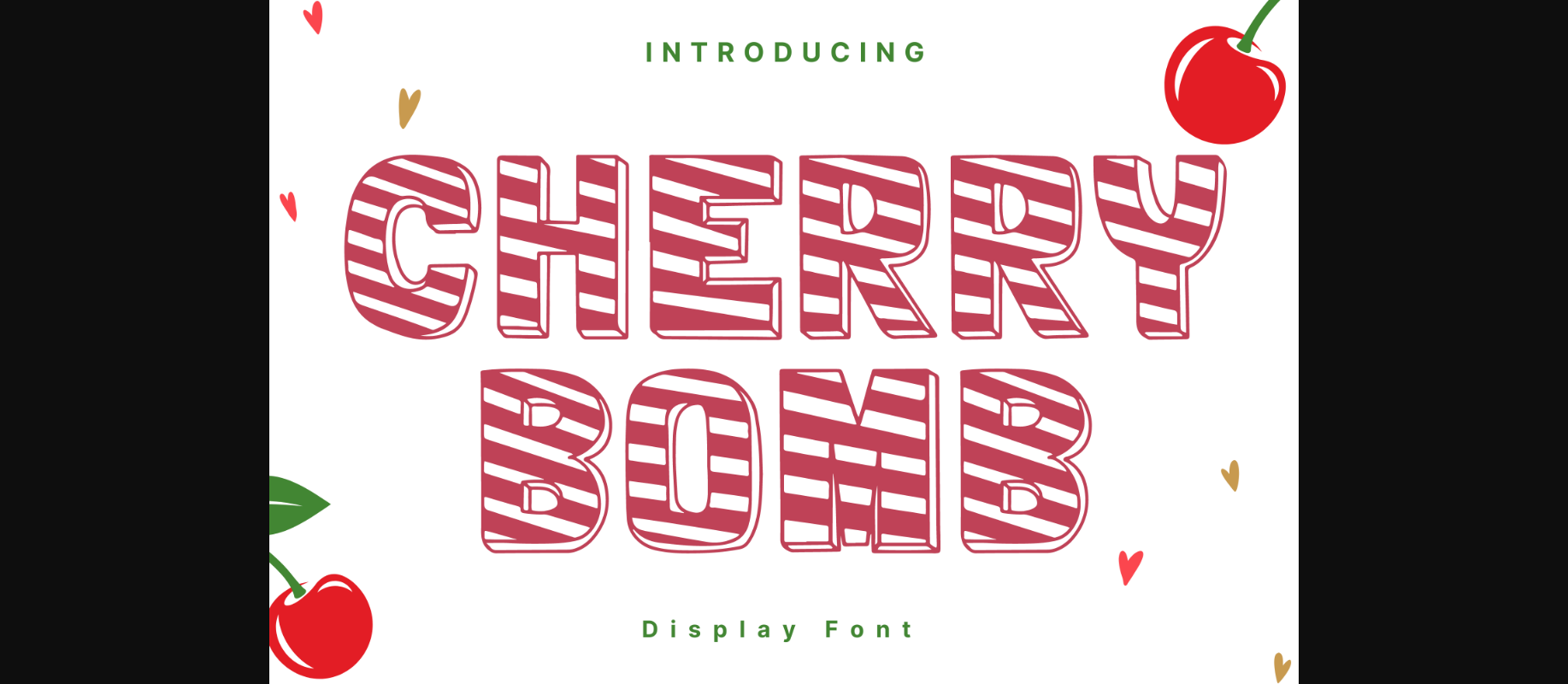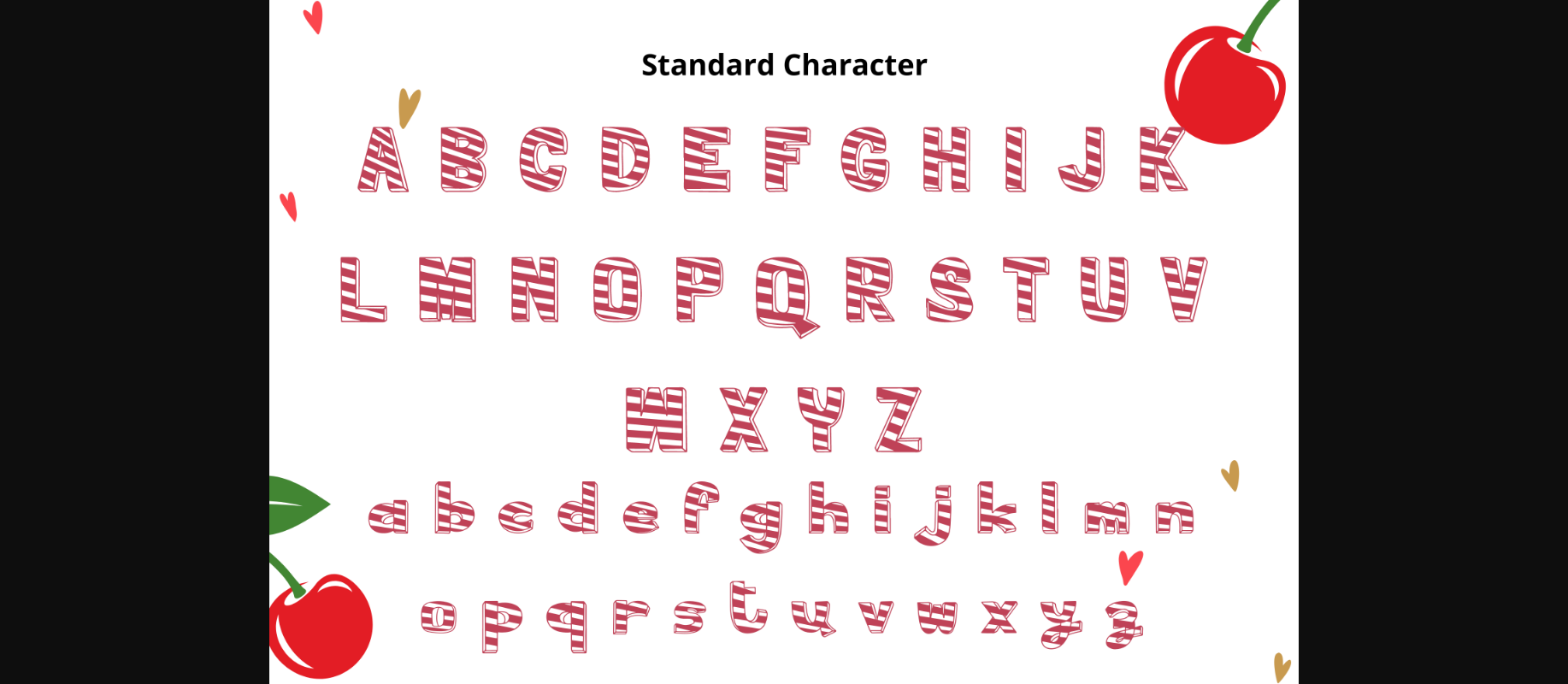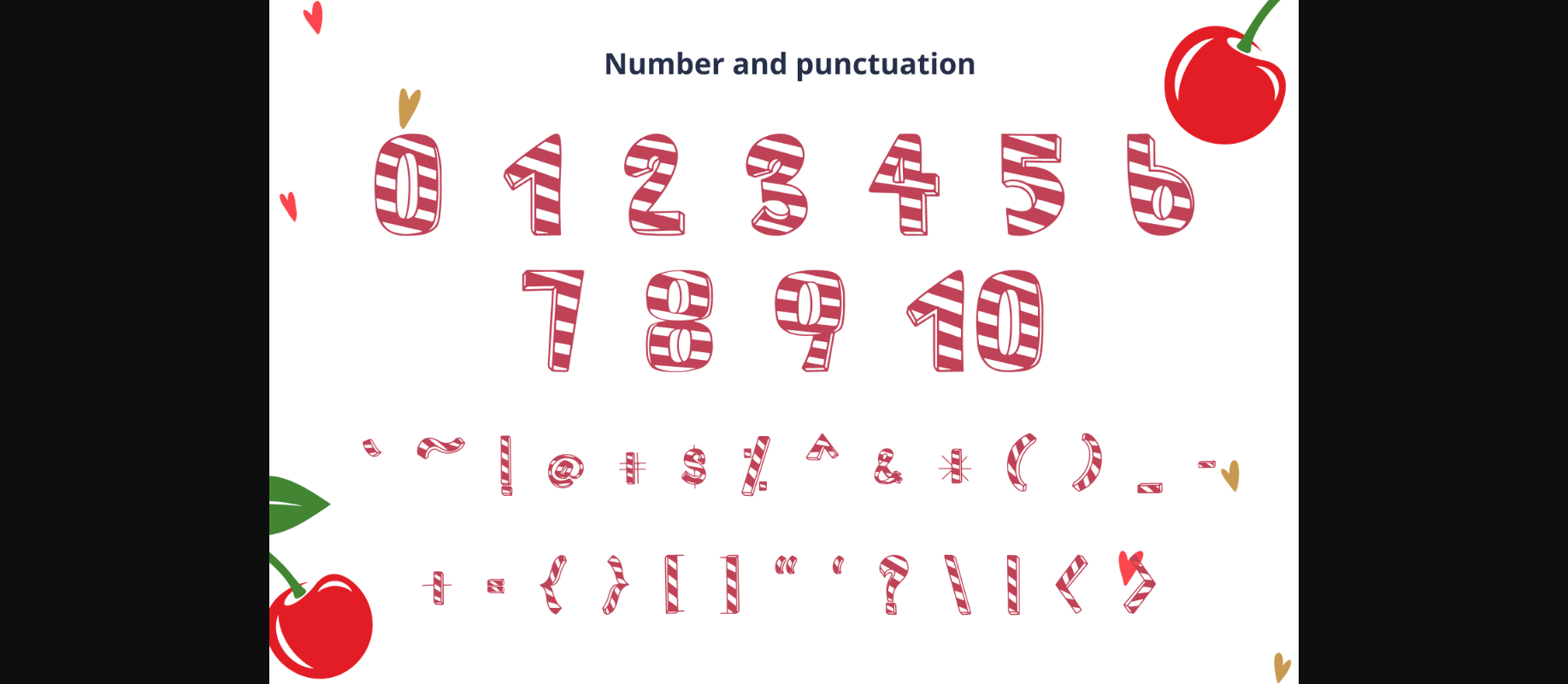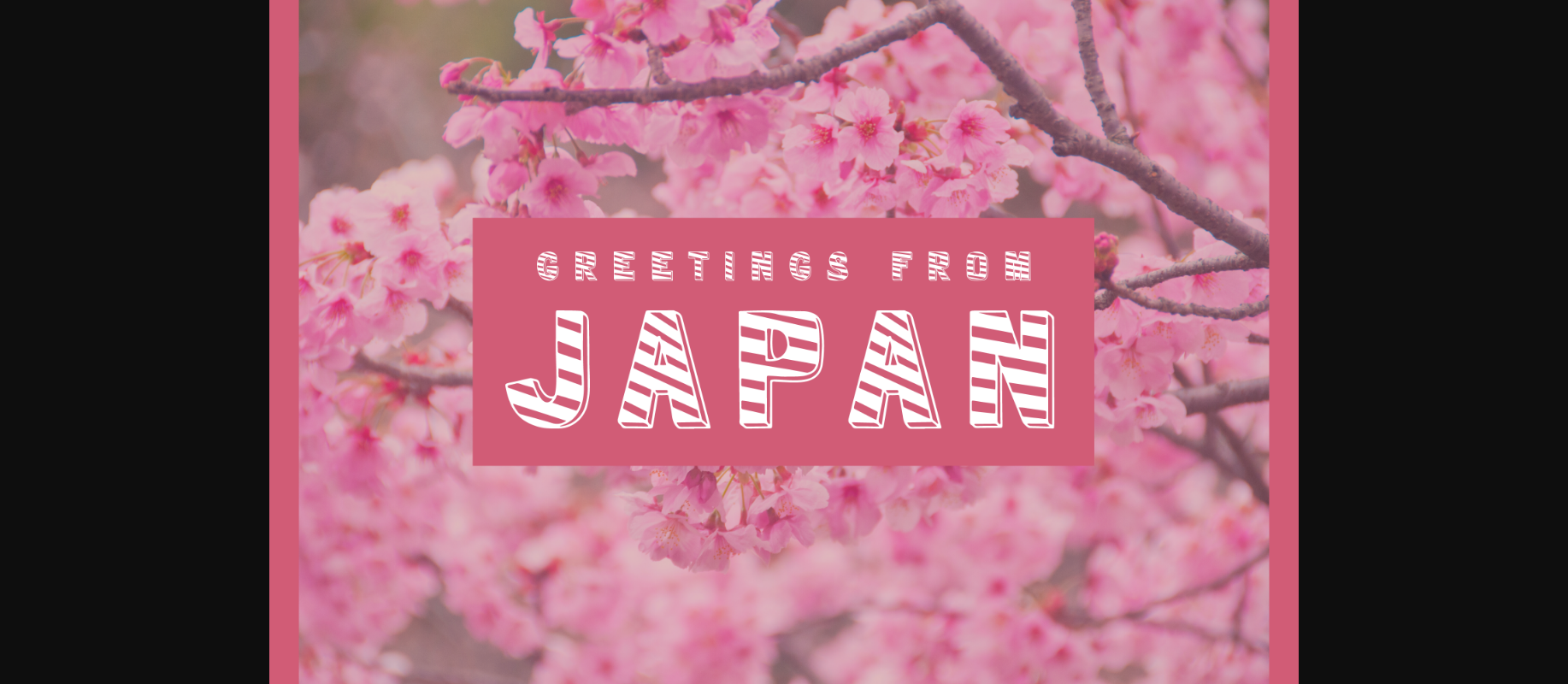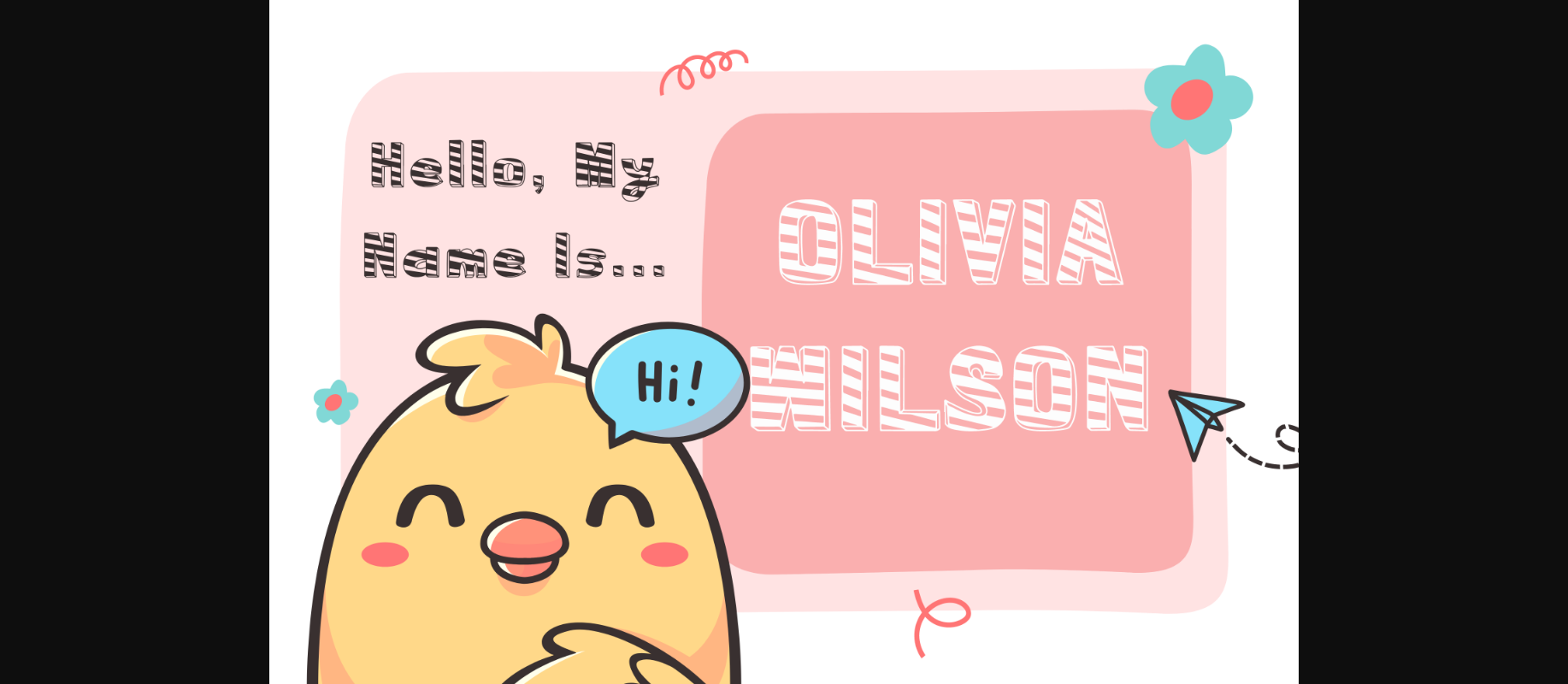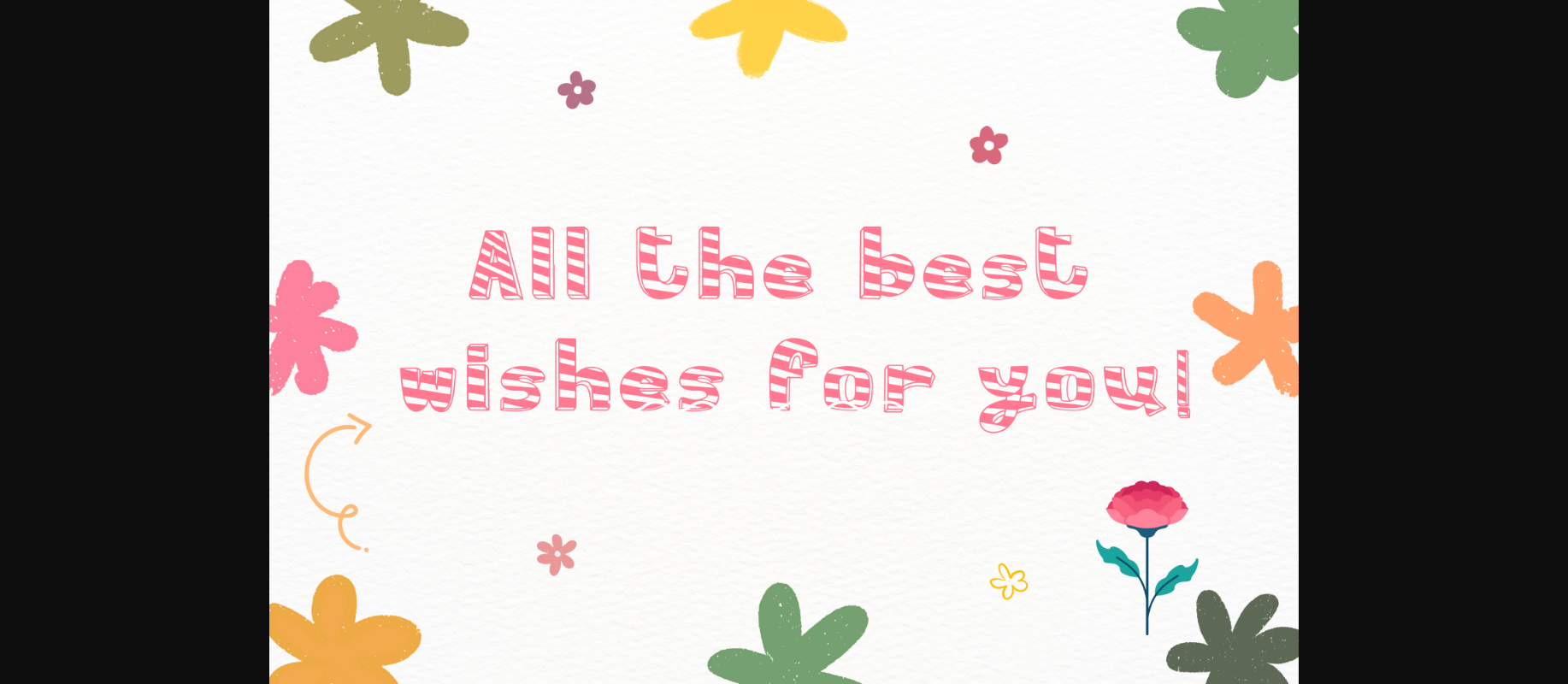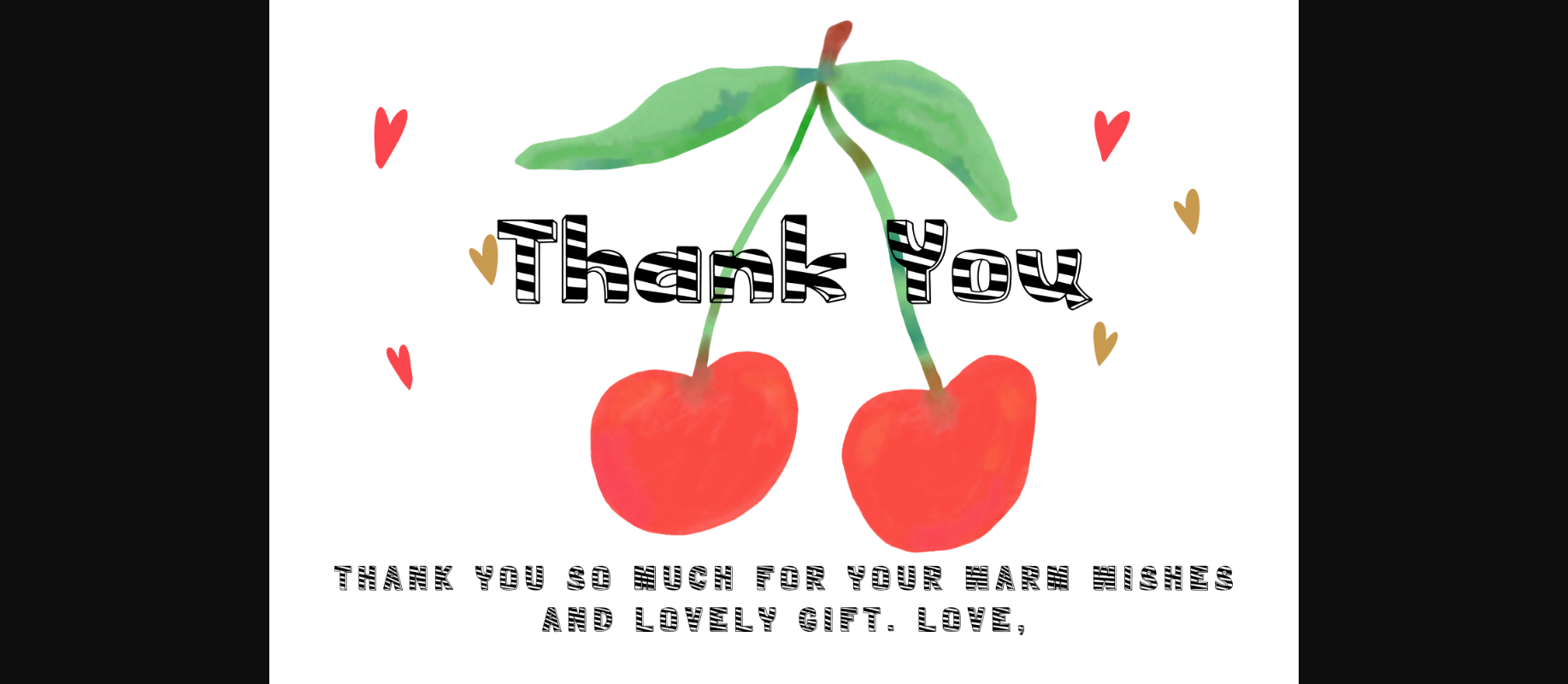
HomeDecorative FontsCherry Bomb Font Decorative Fonts Cherry Bomb Font FacebookXPinterestWhatsApp 1 of 9 ... Cherry Bomb Font Poster 2... Cherry Bomb Font Poster 3... Cherry Bomb Font Poster 4... Cherry Bomb Font Poster 5... Cherry Bomb Font Poster 6... Cherry Bomb Font Poster 7... Cherry Bomb Font Poster 8... Cherry Bomb Font Poster 9... About Cherry Bomb Font Cherry Bomb is a whimsical and sweet-looking decorative font. It can easily be matched to an incredibly large set of projects, so add it to your creative ideas and notice how it makes them stand out! DOWNLOAD NOW People also explored Bounties Font Bridgeston Font Queen of Today Font Good Night Font Harley Script Font Euthen Font Jolahope Font Pretty Girl Font Thorny Rock Font 335 0 TagsCherry Bomb Font Previous articleCarolle FontNext articleLittle Angel Font LEAVE A REPLY Cancel reply Comment: Please enter your comment! Name:* Please enter your name here Email:* You have entered an incorrect email address! Please enter your email address here Website: Save my name, email, and website in this browser for the next time I comment. Personal Use Free Letter Hanger Personal Use Free Read more about this font Triangular Curves Personal Use Free Read more about this font Veronica Personal Use Free Read more about this font Old Linoleum Personal Use Free Read more about this font BLOG 5 Fonts That Will Dominate Design Trends in 2026 5 Fonts for 2026 That Will Dominate Design Trends Typography plays a critical role in visual communication, and as we look ahead to 2026, it’s... Transform Your Website: Elevate Your Typography with 7 Best Web Font Generators Top 7 Google Fonts Alternatives for Faster and Privacy-Friendly Web Design (2025) How to Install and Use Fonts on Windows, macOS, and Web Projects